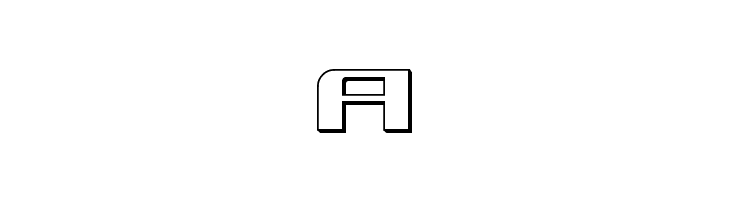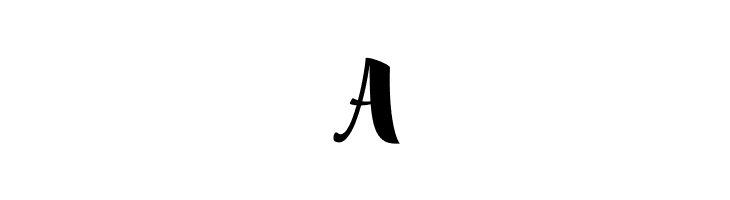
A bold, condensed, and italic font with high contrast and sharp angles.
A bold, geometric display font with a futuristic and industrial aesthetic.
A bold, expanded, and italicized font with a futuristic and dynamic style.
A bold, decorative font with a stencil-like, geometric design.
A delicate and flowing script font with interconnected, cursive letters.
A bold, playful font with decorative curls and loops.
A playful handwritten font with a casual and friendly style.
A bold, decorative font with a vintage striped pattern.
A modern, geometric font with tall, slender characters and a clean design.
A modern, rounded font with a clean and approachable design.
A playful, casual script font with smooth, flowing curves and a handwritten style.
A playful, bold script font with smooth, flowing curves and a handwritten feel.
A bold, geometric font with a modern and futuristic design.
A segmented, LED-inspired font with a technical and futuristic style.
A modern, digital-inspired font with an italic, segmented LED display style.
A pixelated, grid-based font inspired by digital displays.
) A classic serif typeface with elegant, balanced letterforms and subtle serifs.
A pixelated, retro font with a digital, blocky style.
A hand-drawn, charcoal-style font with an organic and playful appearance.
A futuristic, geometric font with outlined letterforms and a tech-inspired aesthetic.
A futuristic, 3D, italicized font with bold geometric shapes and outlined characters.
A bold, semi-italic font with a futuristic and geometric design.
A futuristic, geometric font with bold, angular lines and a hollow structure.
A futuristic, angular, and italic font with outlined characters.